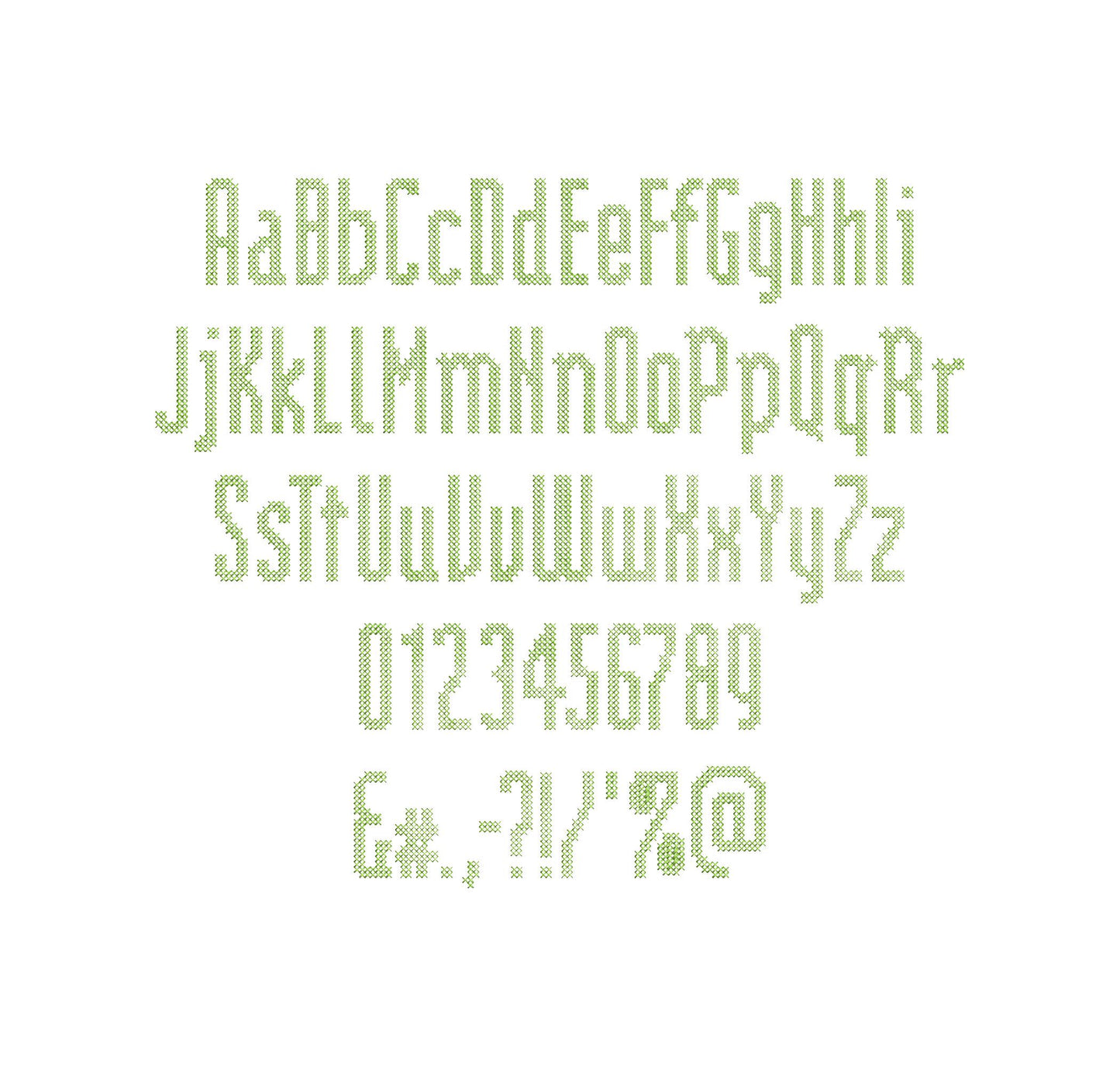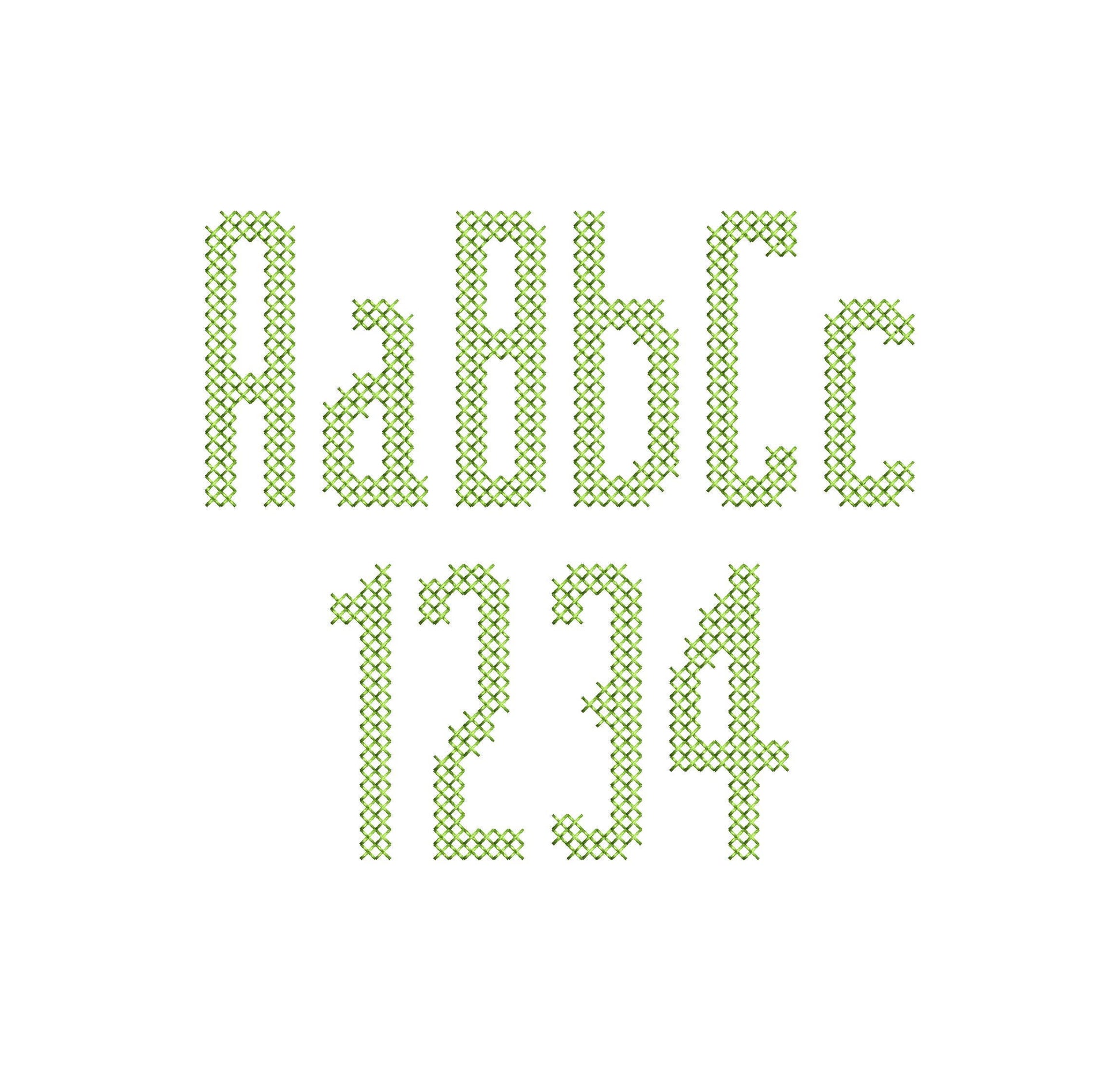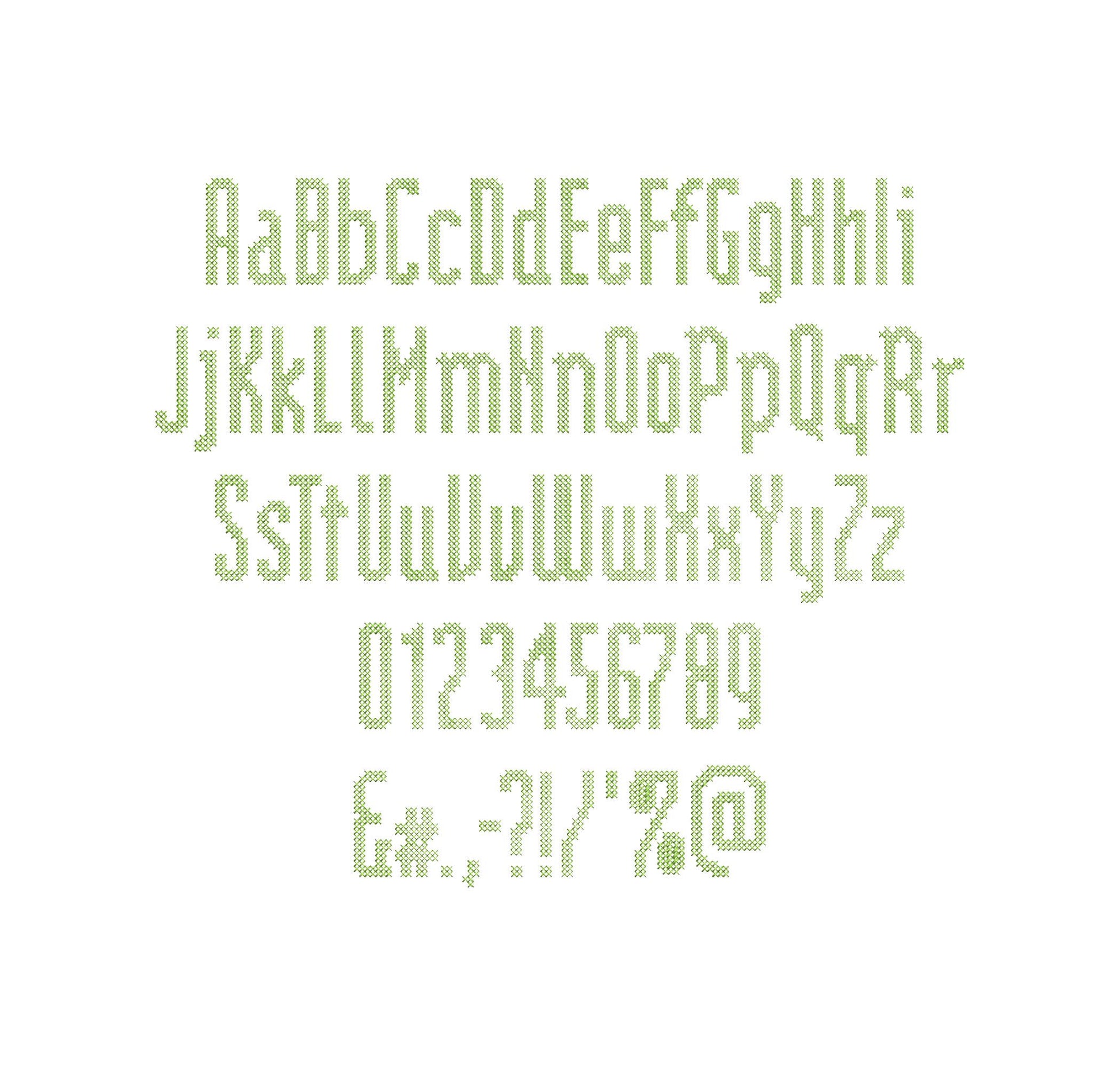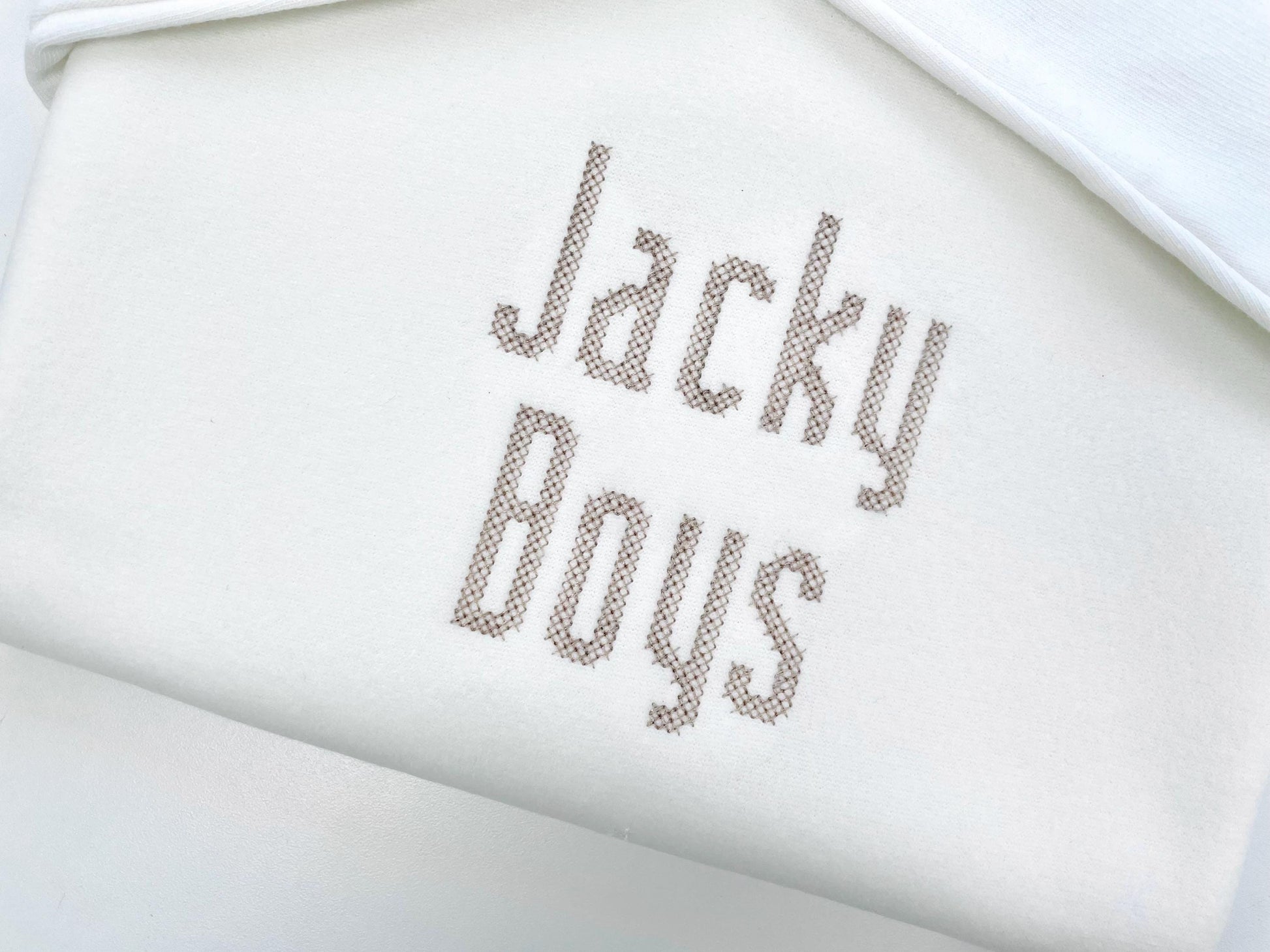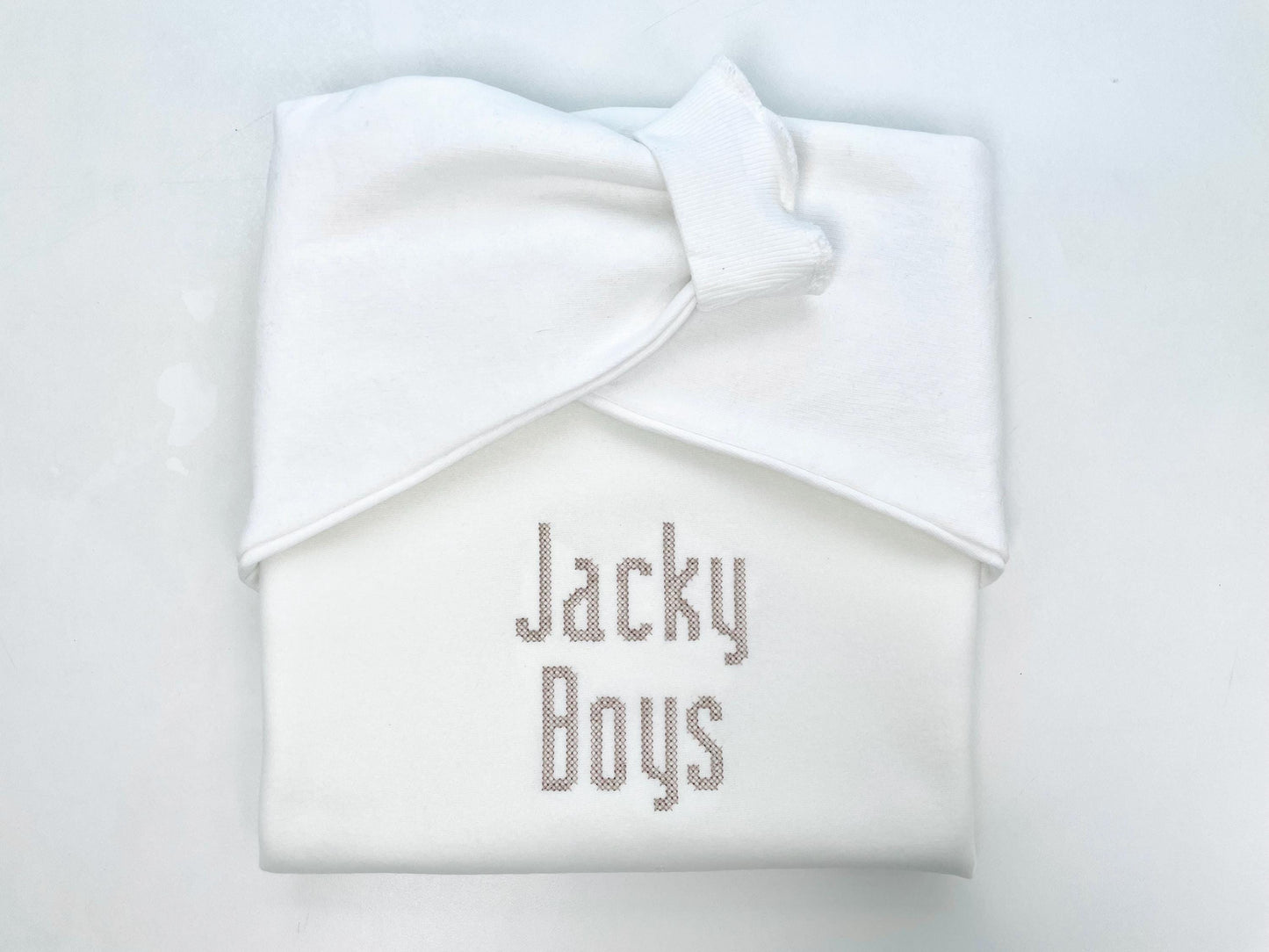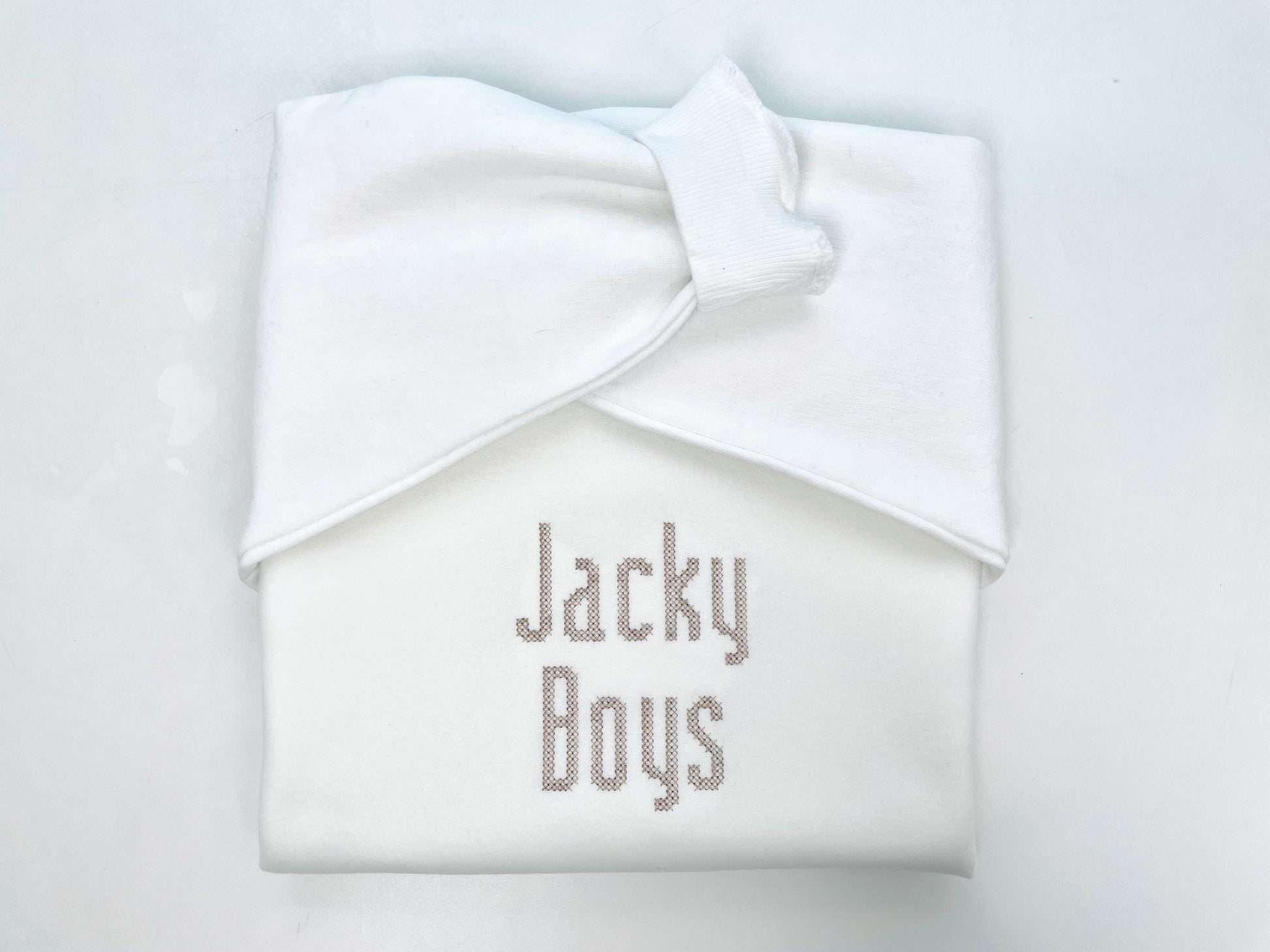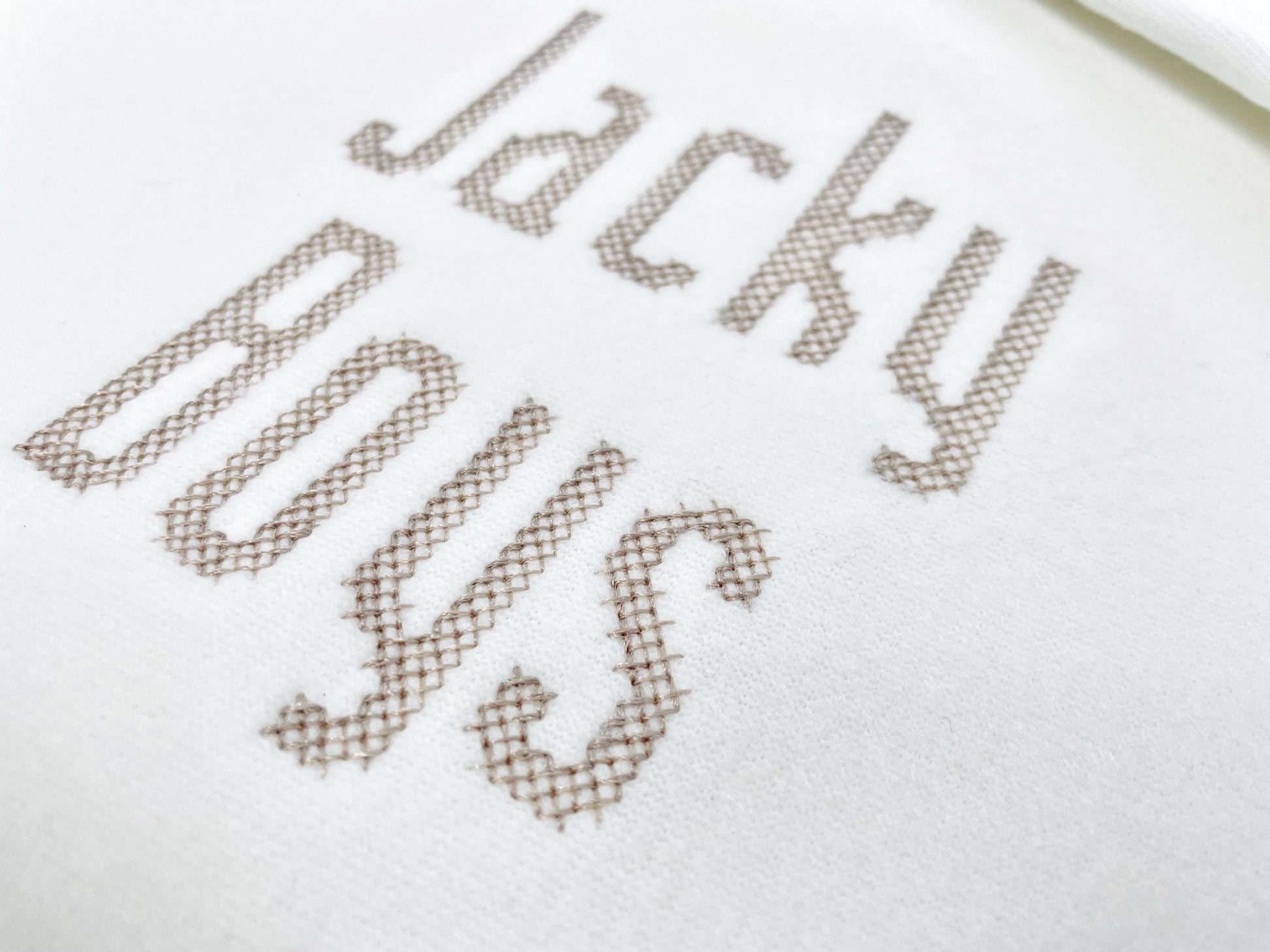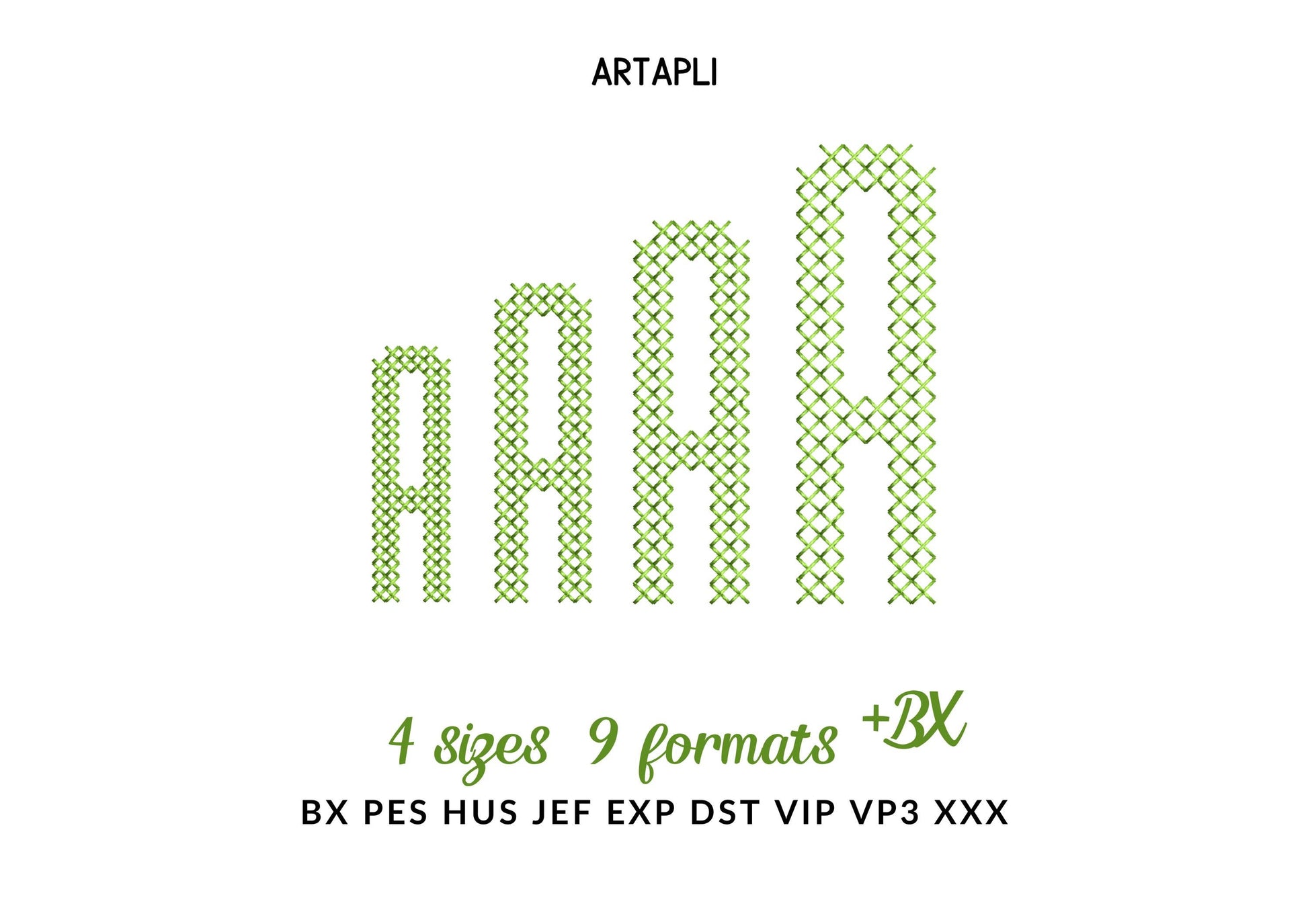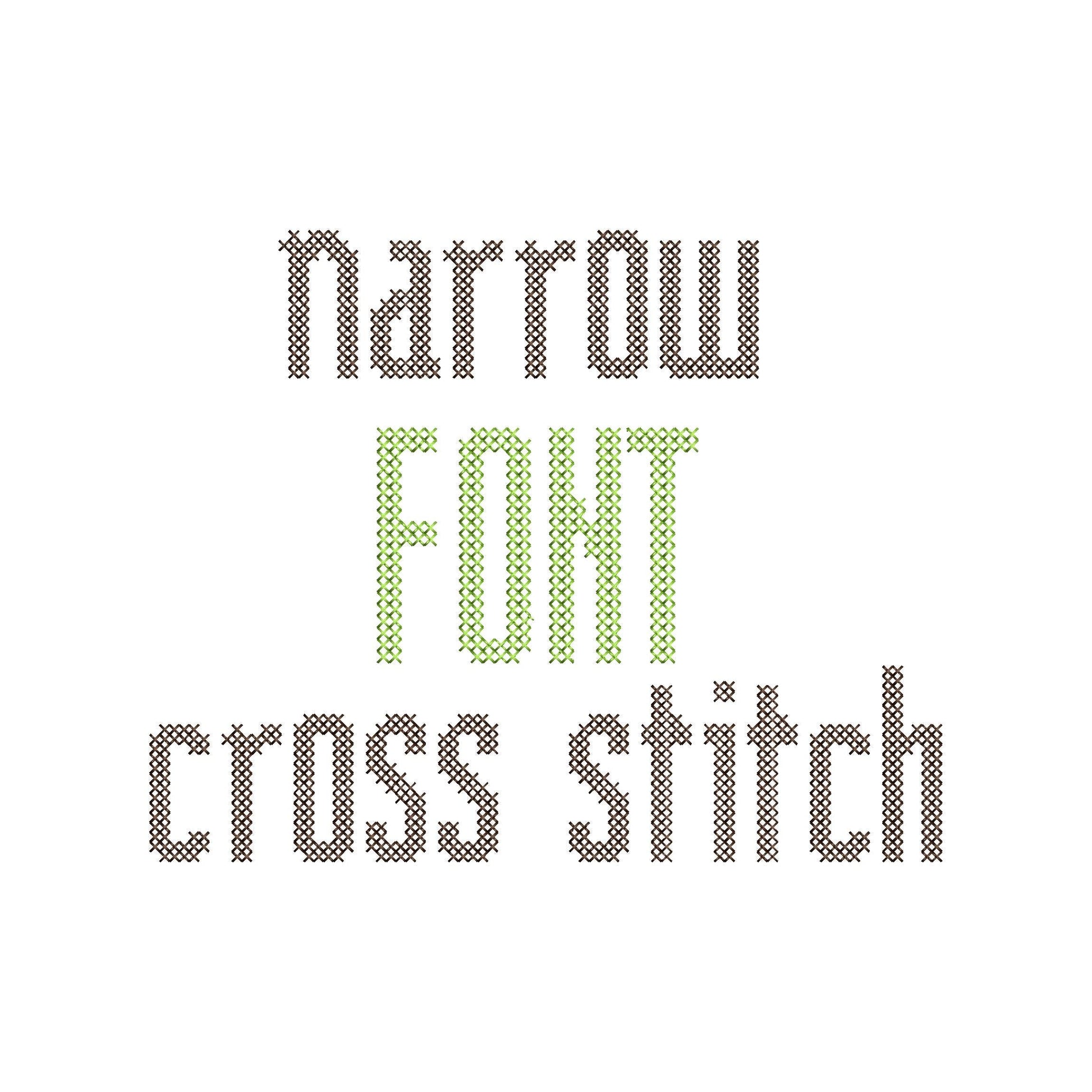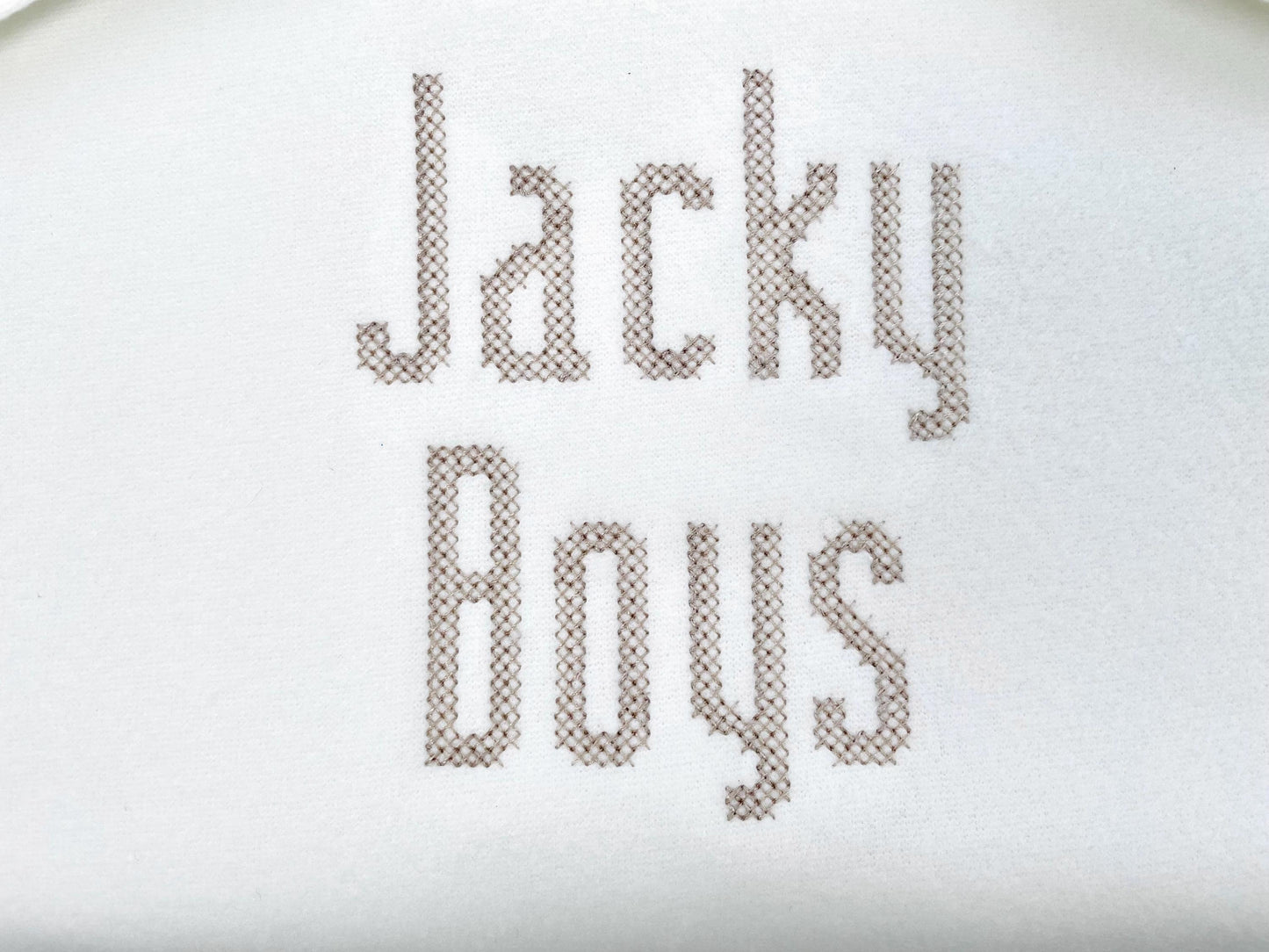
Cross Stitch Narrow Font
Uppercase and lowercase letters, numbers 0 to 9 and lots of punctuation, in four sizes: 1.6, 2, 2.4 and 2.8 inches.
- Narrow cross stitch block font
- Uppercase and lowercase letters, numbers 0-9, punctuation
- 4 sizes, 1.6 to 2.8 in